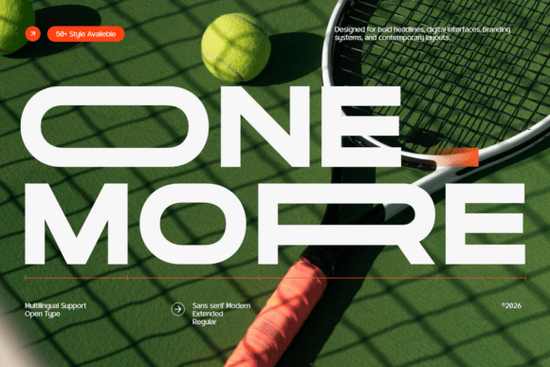
One More Font is a clean, modern sans serif typeface built for clarity and strong visual impact. If you're looking for a reliable font that works well across digital projects, print materials, branding, or web design, this one delivers without fuss. It’s especially useful when you need a bold yet readable style that feels contemporary and professional.
What makes One More Font stand out?
Designed with a geometric structure and balanced spacing, One More offers a confident look that’s both sleek and functional. The letterforms are wide and evenly spaced, which helps maintain readability even at smaller sizes or in tight layouts. This makes it ideal for headlines, logos, app interfaces, packaging, and editorial work.
The font supports full uppercase and lowercase letters, standard numerals, punctuation, and a broad range of multilingual Latin characters. That means you can use it in international projects whether you’re designing for clients in Europe, North America, or beyond without worrying about missing characters.
Where can I use One More Font?
You’ll find this typeface working well in many creative fields:
- Branding & identity – Its clean lines and strong presence make it perfect for company names, logos, and taglines.
- Web & app UI – Use it for buttons, menus, and headings where legibility matters.
- Print & packaging – Great for flyers, business cards, labels, and product boxes.
- Marketing & social media – Works well in banners, posts, and promotional visuals.
- Motion graphics – Smooth proportions help it move cleanly in animations and video titles.
It’s not just for big projects. Crafters and small business owners using print-on-demand platforms will appreciate how it looks on T-shirts, mugs, and stickers especially when paired with simple backgrounds or solid colors.
How does it perform across devices and formats?
One More was built with performance in mind. Whether you’re exporting to PDF, using it in a design app like Adobe Illustrator or Canva, or embedding it on a website, the font holds up well. Its consistent stroke weight and even spacing reduce visual strain, making it easier on the eyes during long reading sessions.
Because it’s a true sans serif with no decorative elements, it avoids distractions. That focus on function gives your message more room to shine no extra clutter, just clear communication.
Final thoughts: Is One More Font right for your next project?
If you want a font that’s reliable, versatile, and ready for real-world use across brands, websites, and physical products One More fits the bill. It doesn’t try to be flashy. Instead, it focuses on doing one thing well: delivering clear, modern typography that stands out by being easy to read and hard to ignore.
Whether you’re a designer refining a client’s brand, a hobbyist creating custom art, or a small shop owner printing t-shirts, this font adds polish without complexity.